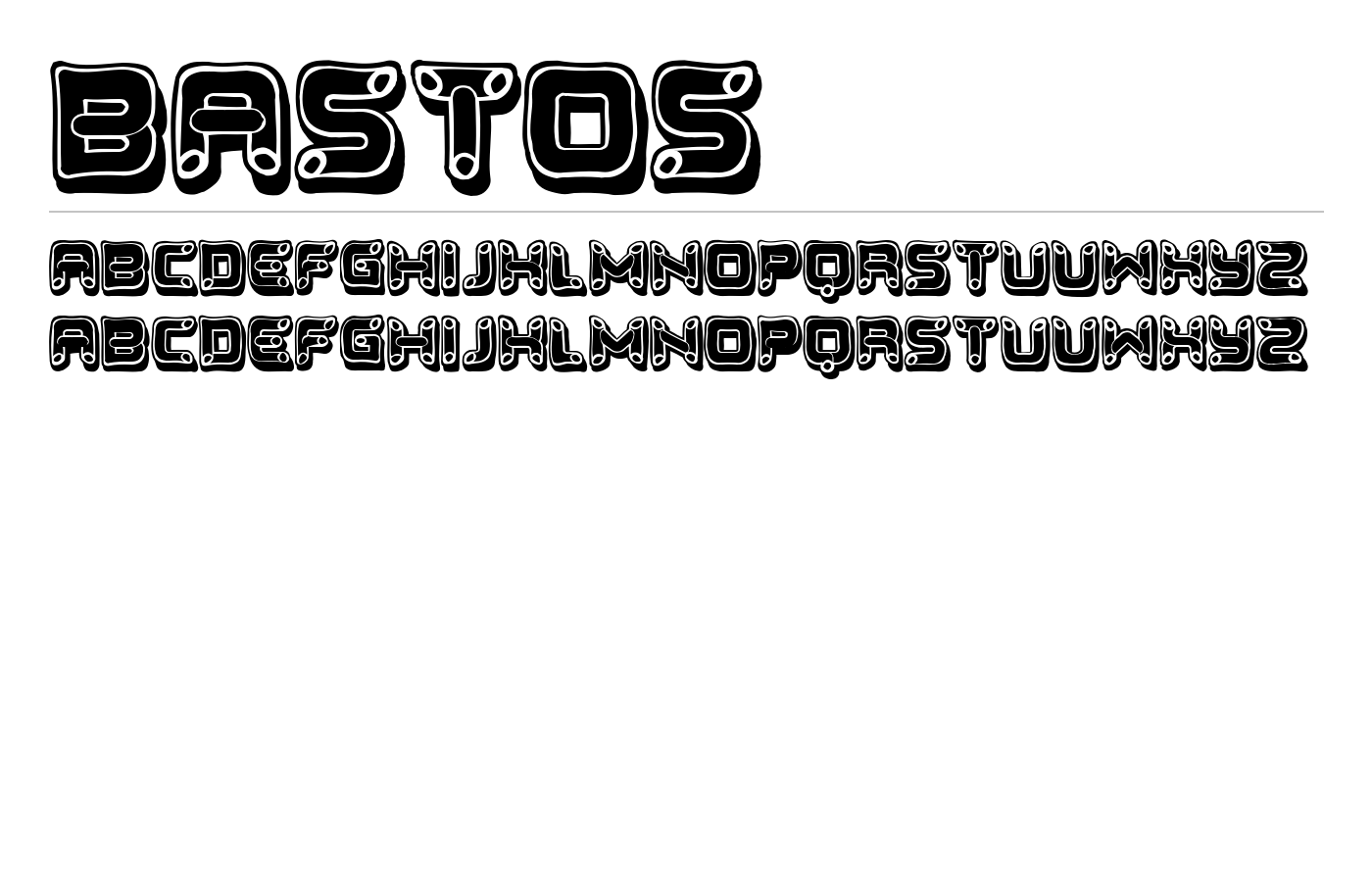
Bastos is a bold, playful display font with a thick, rounded sans serif style that features unique, almost bubbly contours and an outlined shadow effect giving it a three-dimensional feel. Its heavy weight, condensed width, and quirky letterforms make it ideal for eye-catching headlines, logos, and posters that want to convey fun, creativity, and a retro vibe. This font works best in informal, vibrant branding and designs where personality and impact are key.
Bastos Font
About Bastos Font